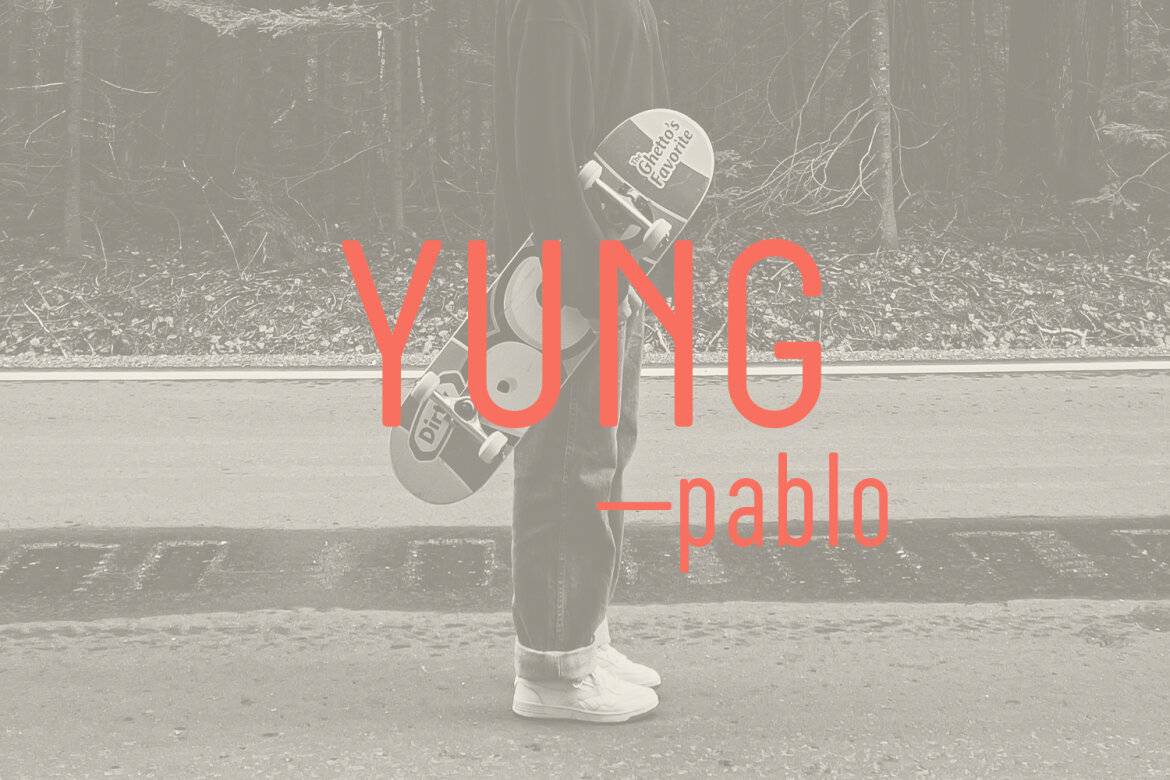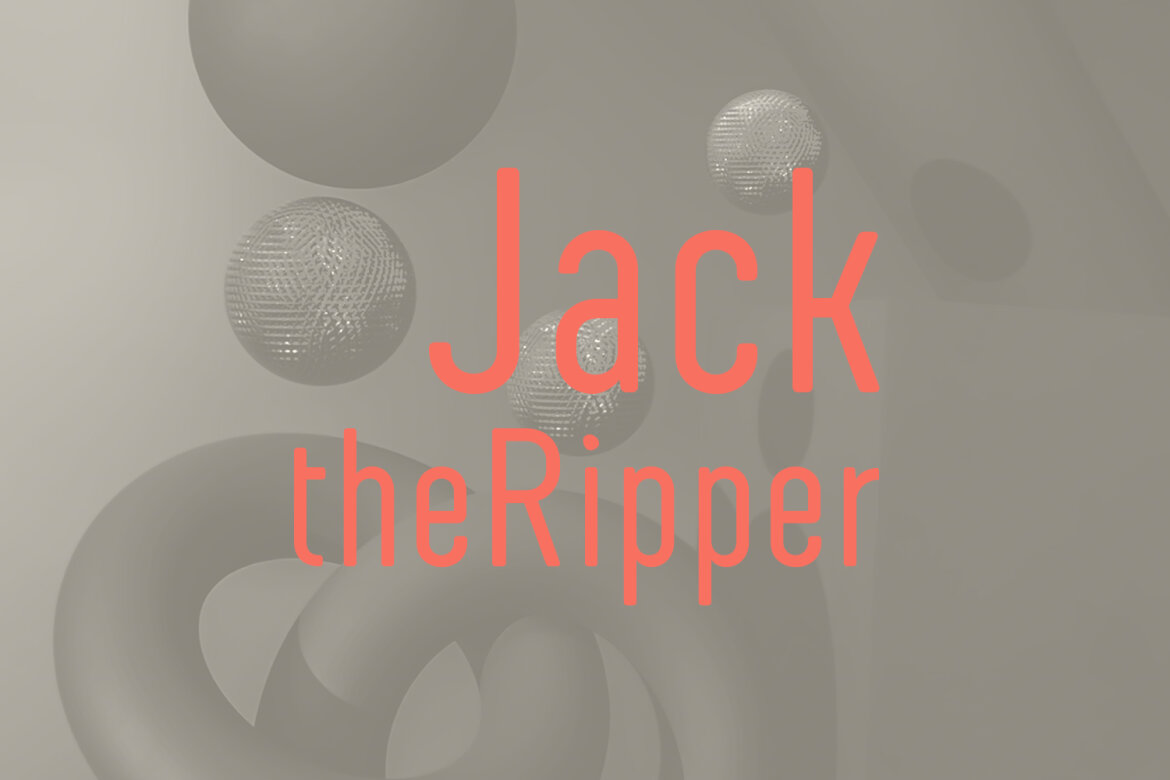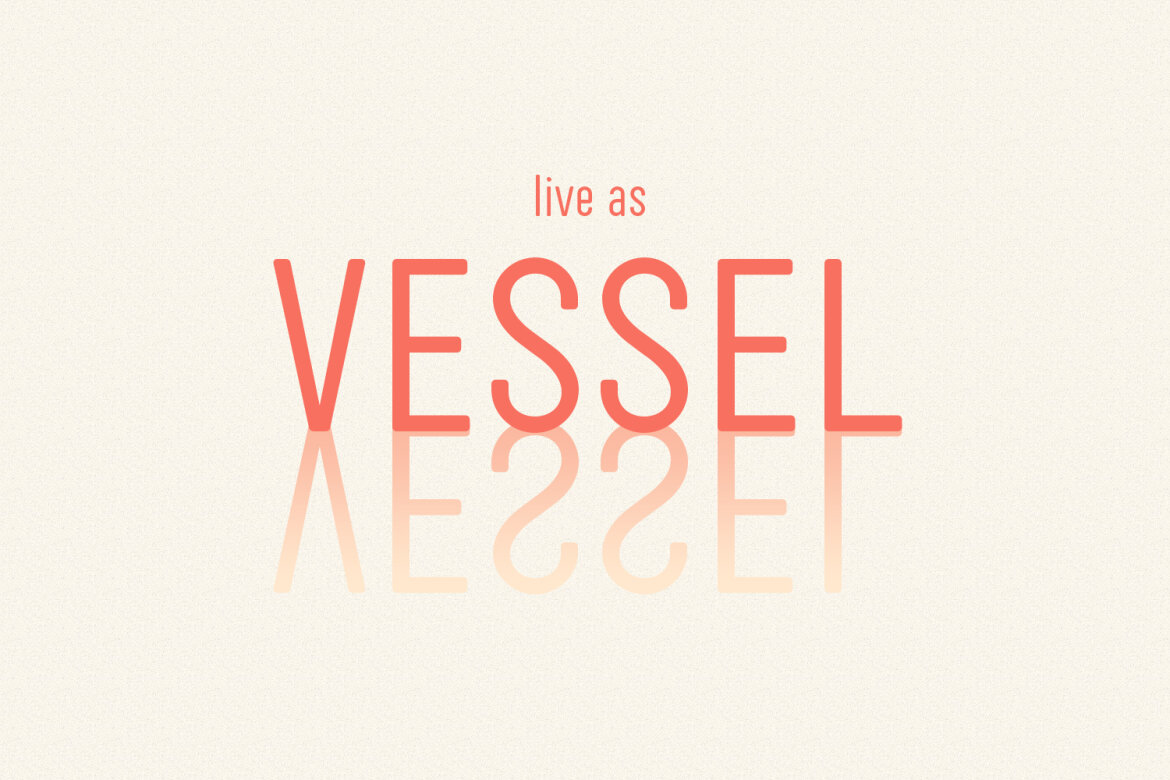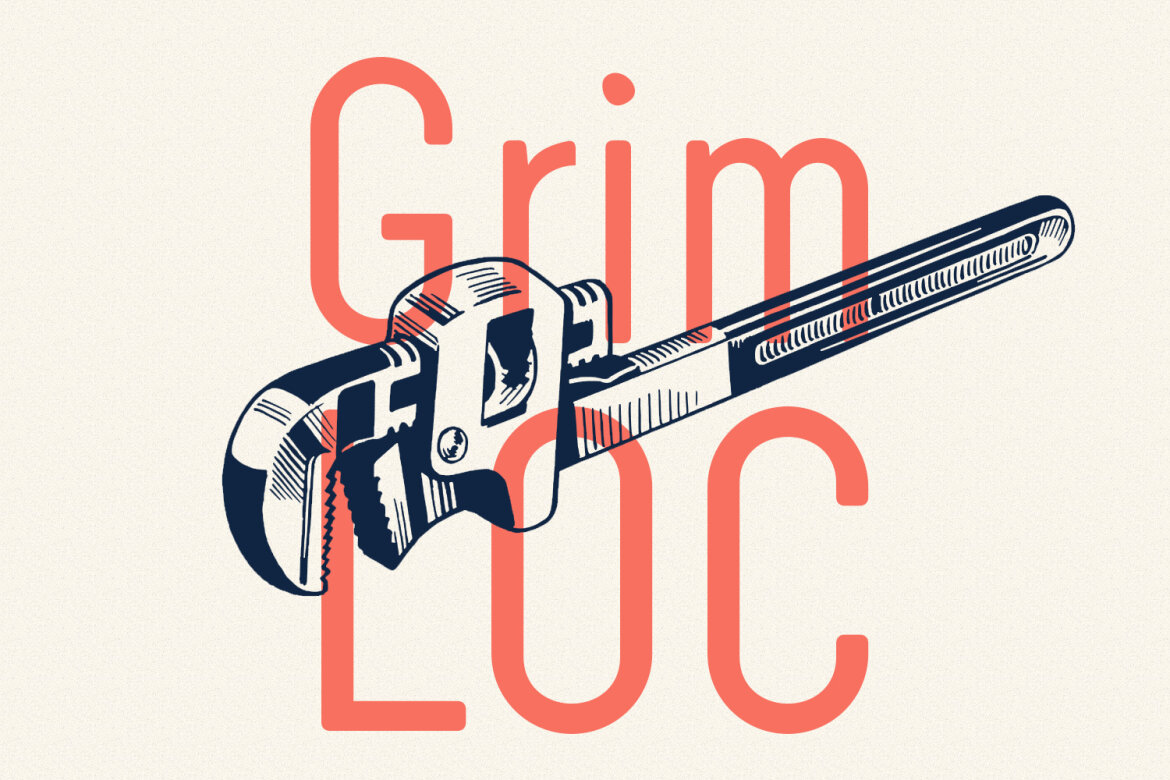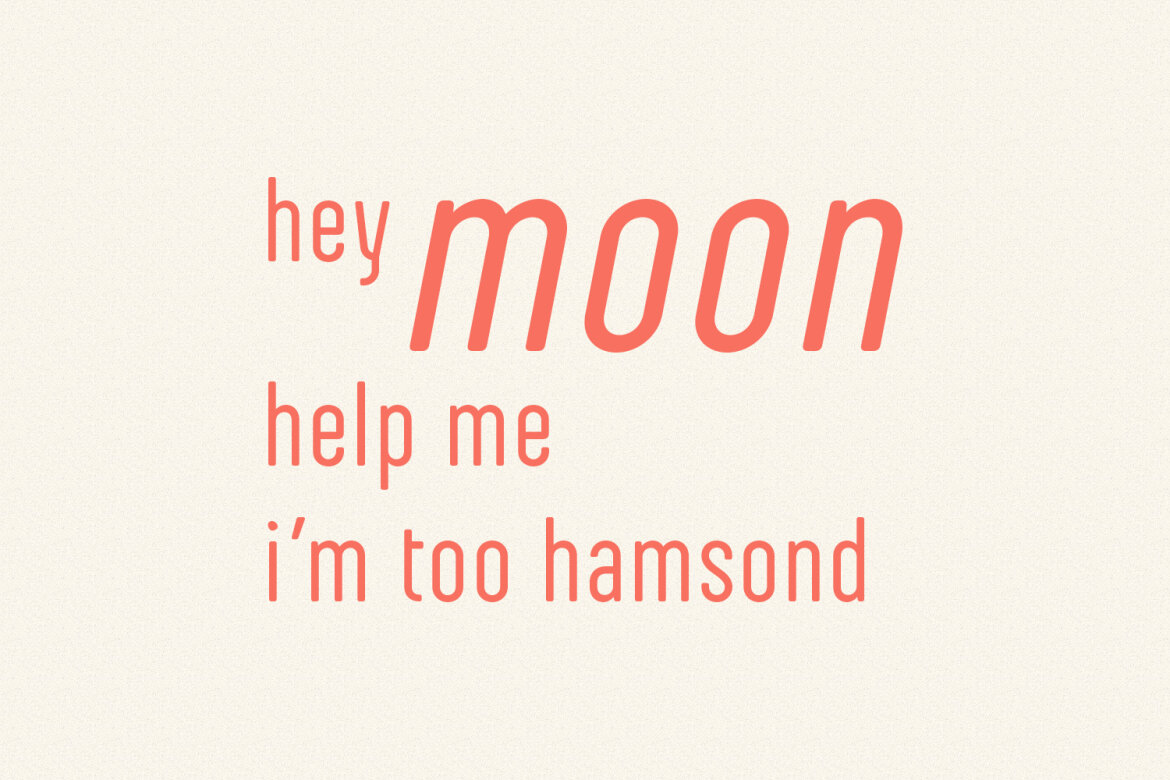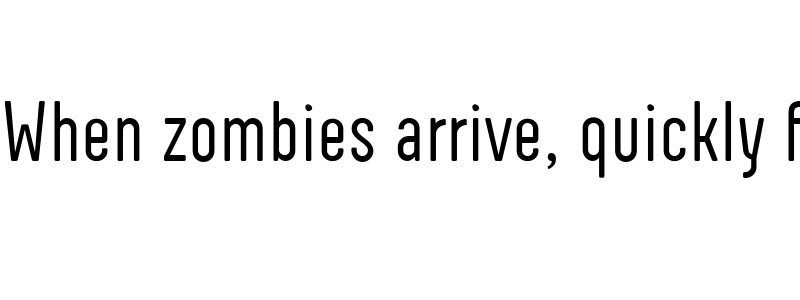
Higasper Clean Sans FREE Font
Higasper
Higasper is a simply semi-monospace sans font. With medium low contrast stroke, fun character with a bit of ligatures and alternates. To give you an extra creative work. Higasper font support multilingual more than 100+ language. This font is good for logo design, Social media, Movie Titles, Books Titles, a short text even a long text letter and good for your secondary text font with sans or serif. Make a stunning work with Higasper font.